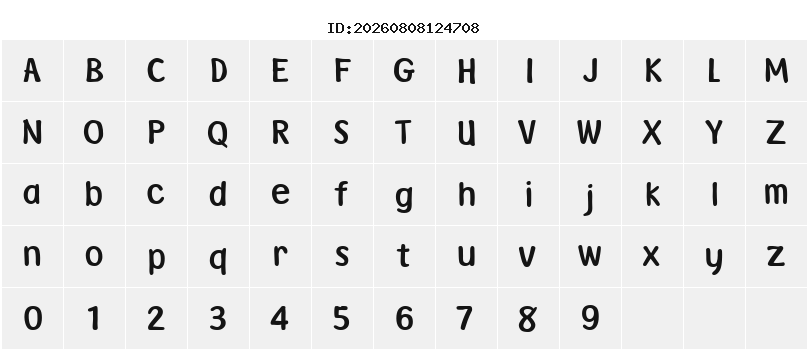
Pooh Preview
• Font Name: Pooh
• Full Font Name: Pooh
About Pooh.ttf
Pooh.ttf is a modern, elegant sans-serif font designed for ultimate readability and visual harmony. Perfect for branding, headlines, web design, and print materials.